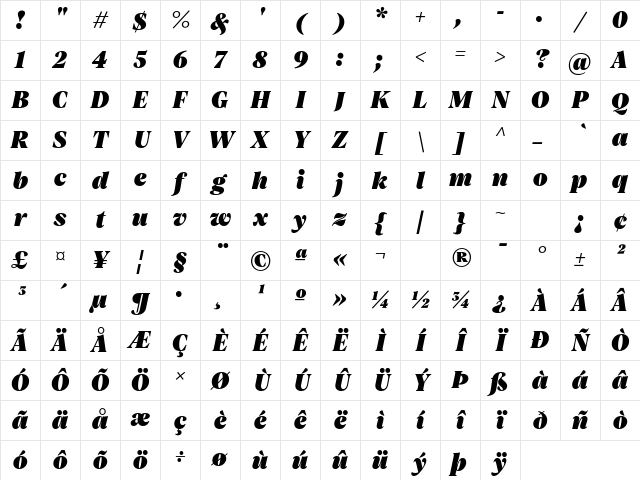
Vesterbro Poster Italic
Foundry: BlackFoundry
Designer: Jeremie Hornus, Alisa Nowak, Ilya Naumoff
Design Context for Vesterbro Poster
Vesterbro Poster is a composed and adaptable typeface that performs quietly and consistently across a wide range of design contexts. The slanted form adds forward momentum and visual energy.
Pro Tip: Use Vesterbro Poster for emphasis, pull quotes, and subheadings where its slanted energy can add rhythm to the layout.